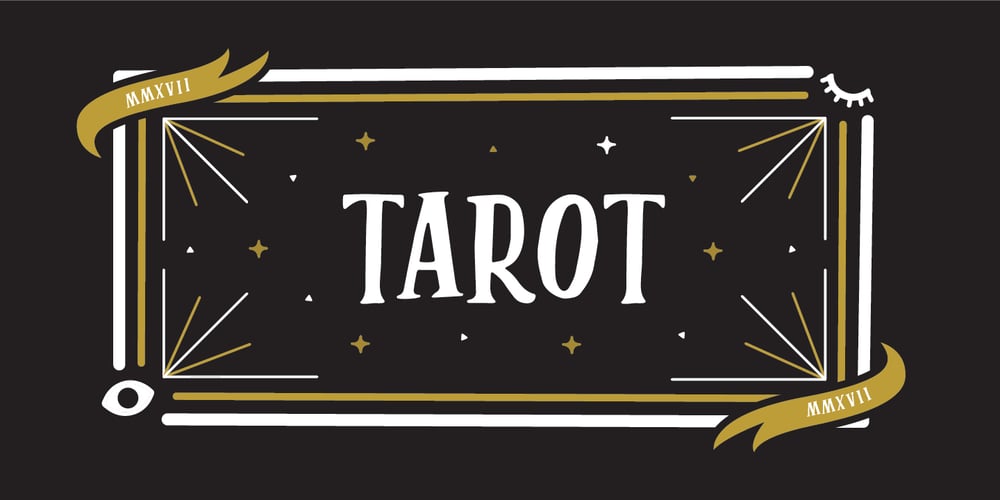
Tarot
Tarot font
Tarot Font Family was designed by Dathan Boardman, Molly Jacques and published by Great Lakes Lettering. Tarot contains 1 styles and family package options. Let Tarot wisp you away onto an enchanted journey. This whimsical serif typeface is perfect for headlines, small bodies of text, and feels like magic when paired with scripted type. Inspired partly by Helsing, Tarot features a similar essence, along with an alluring and spontaneous handwritten presence. Tarot is a charming font used to make anything created feel bewitched. Presto!